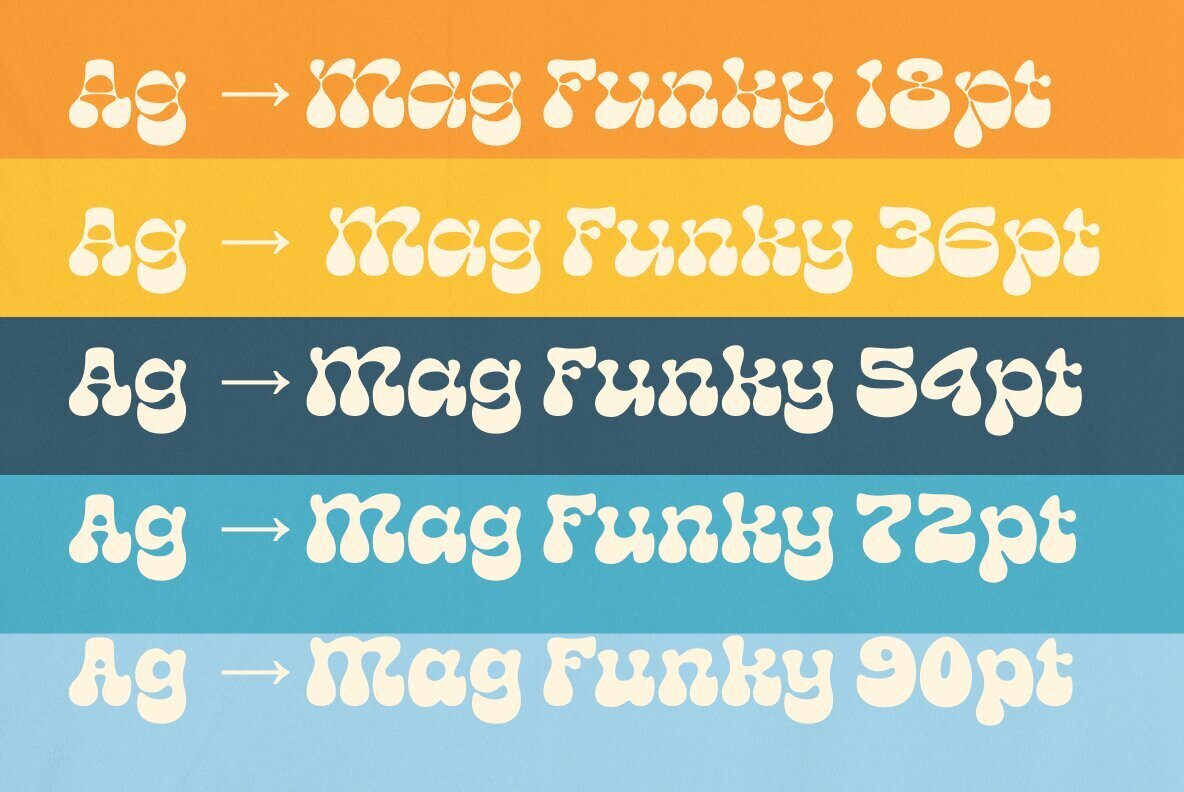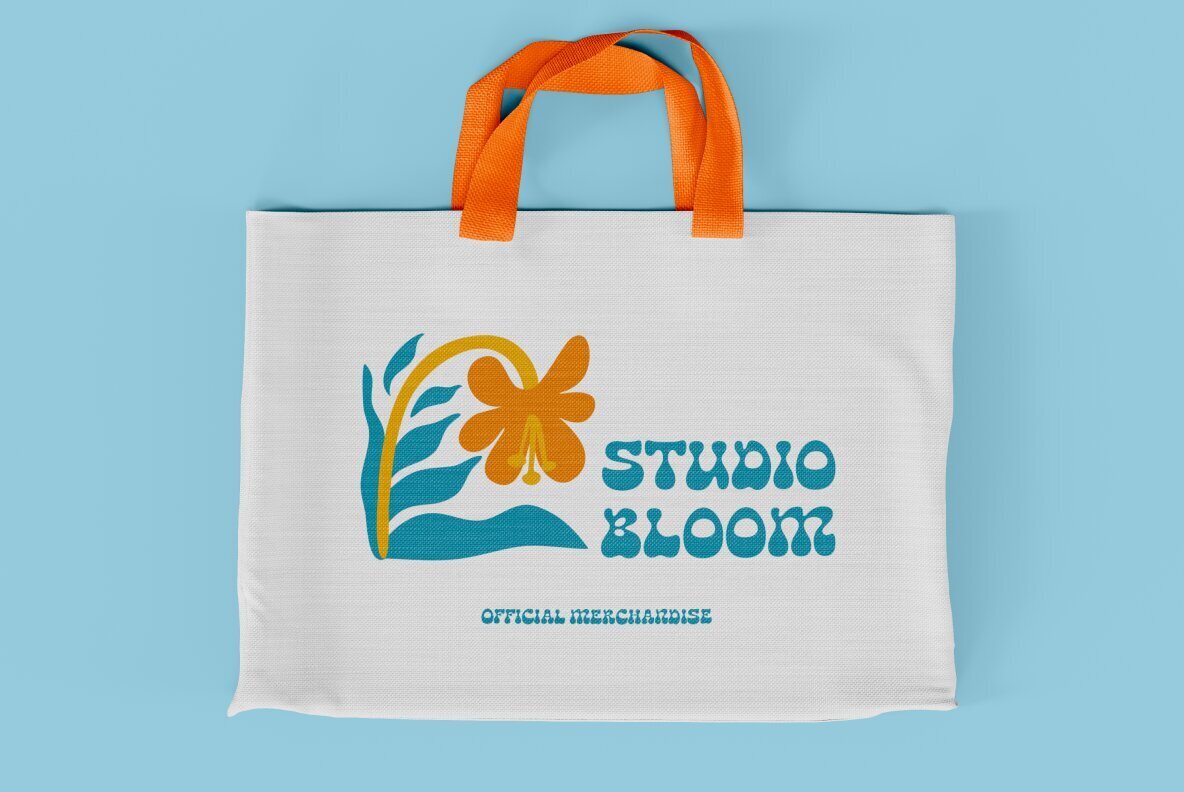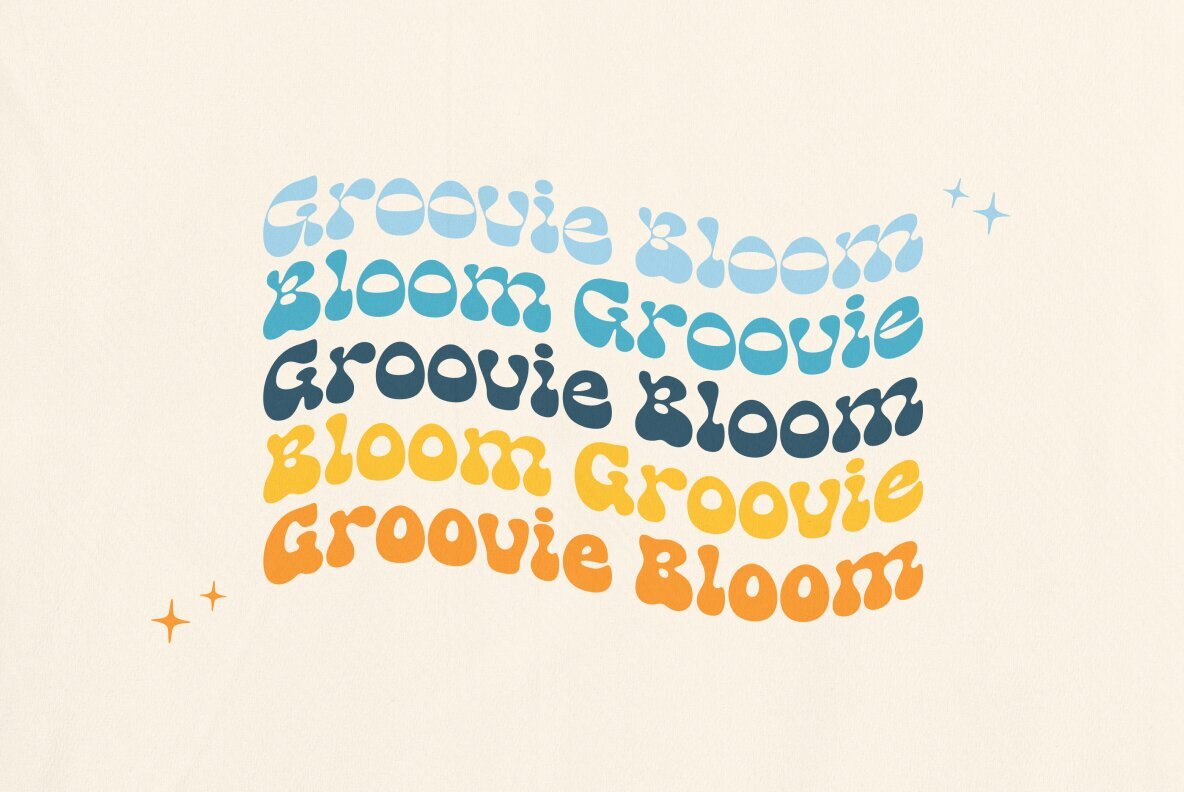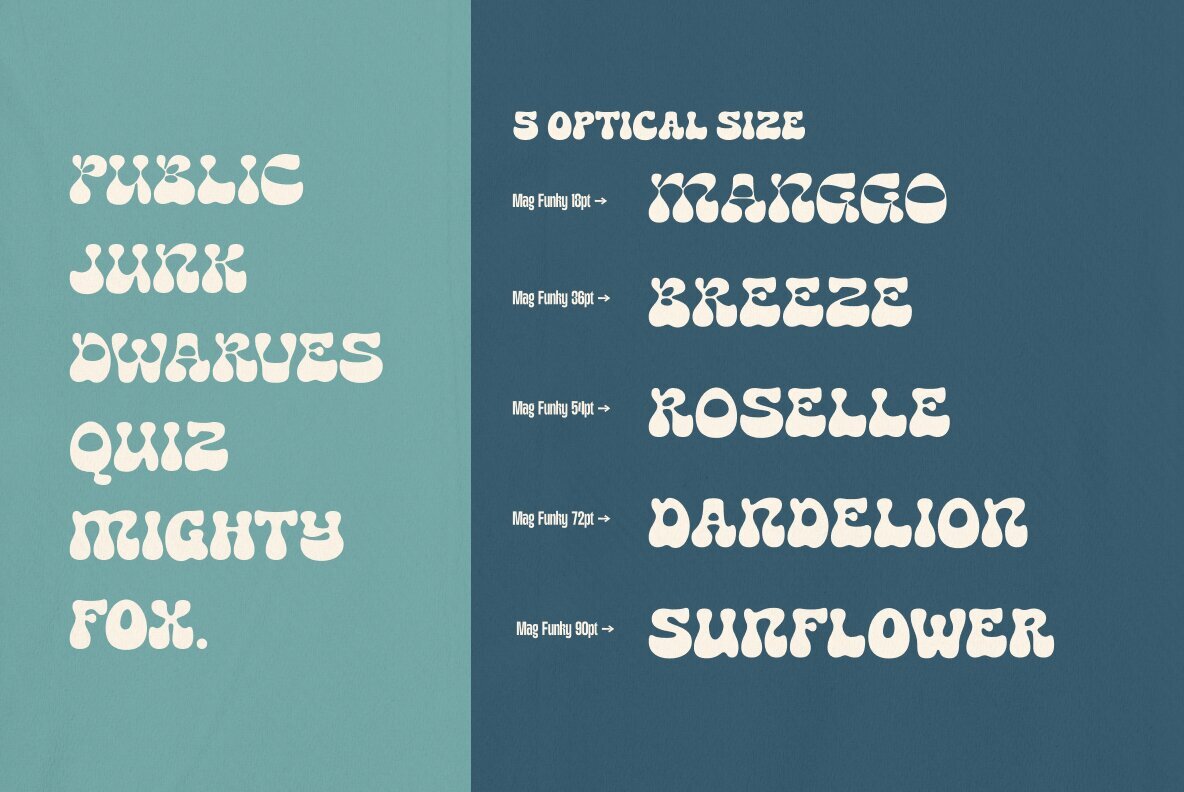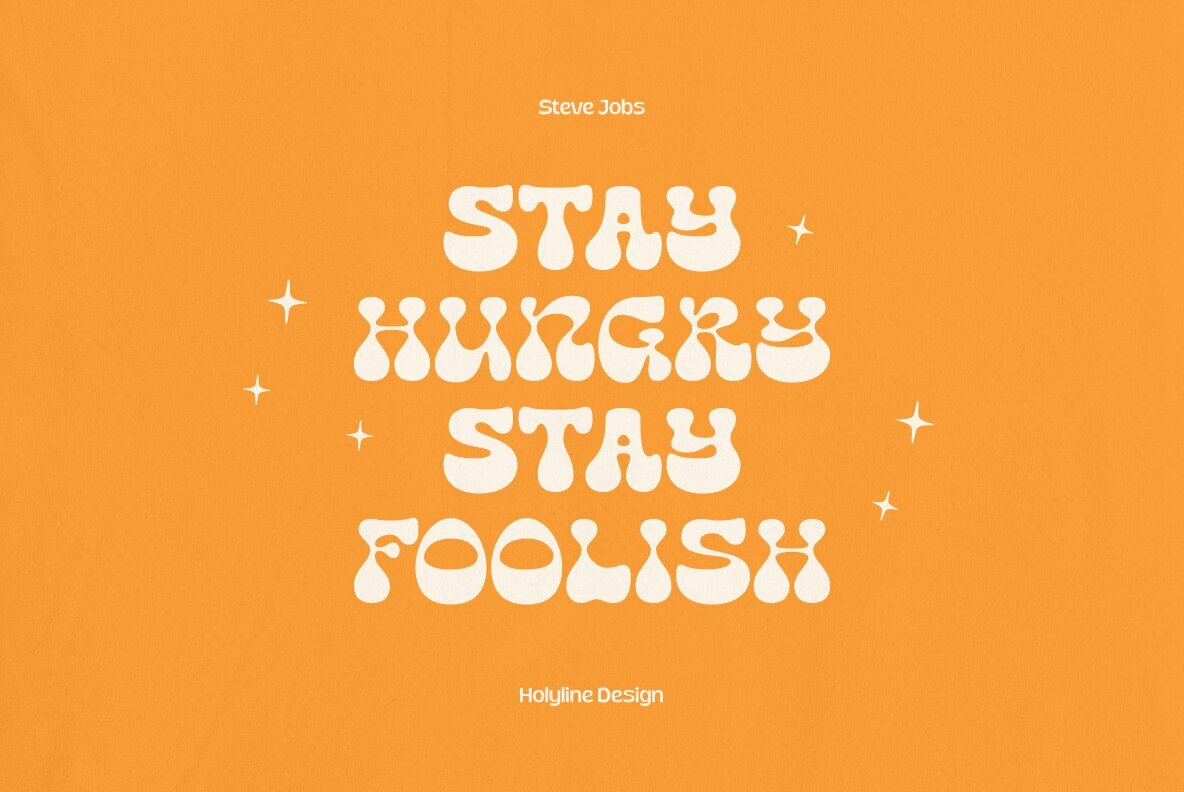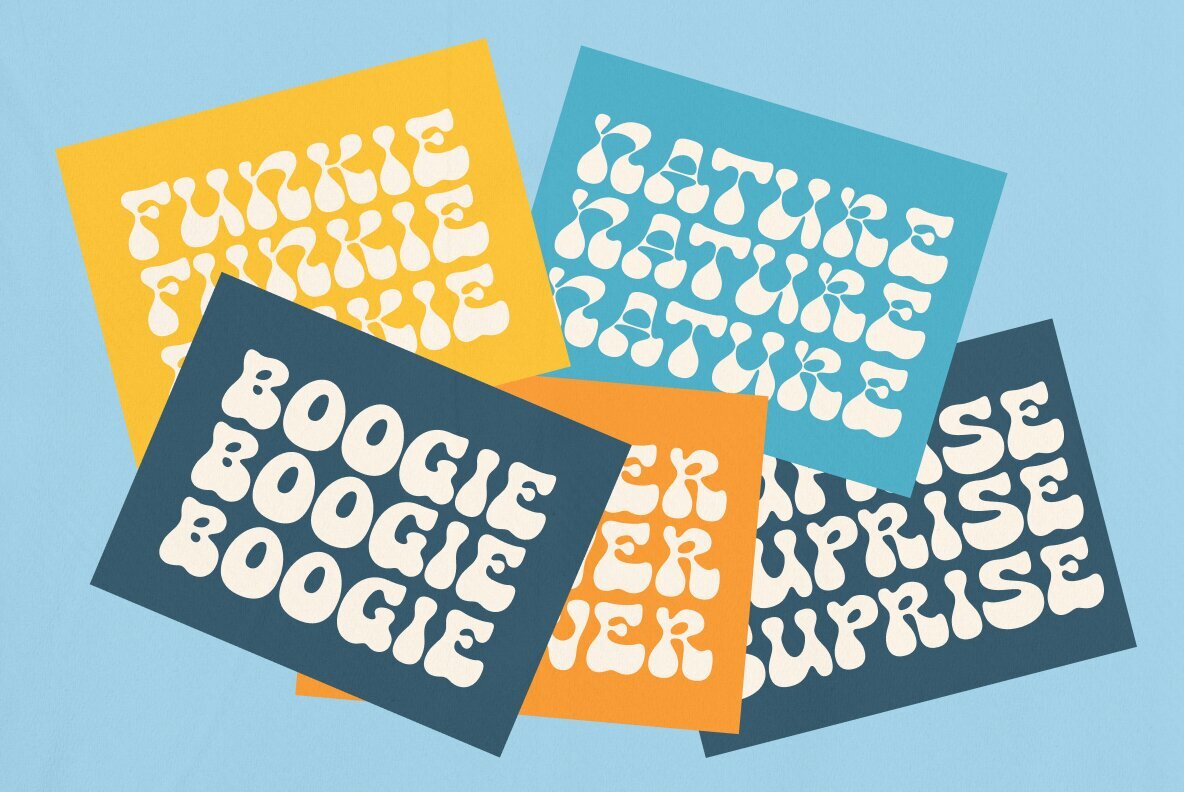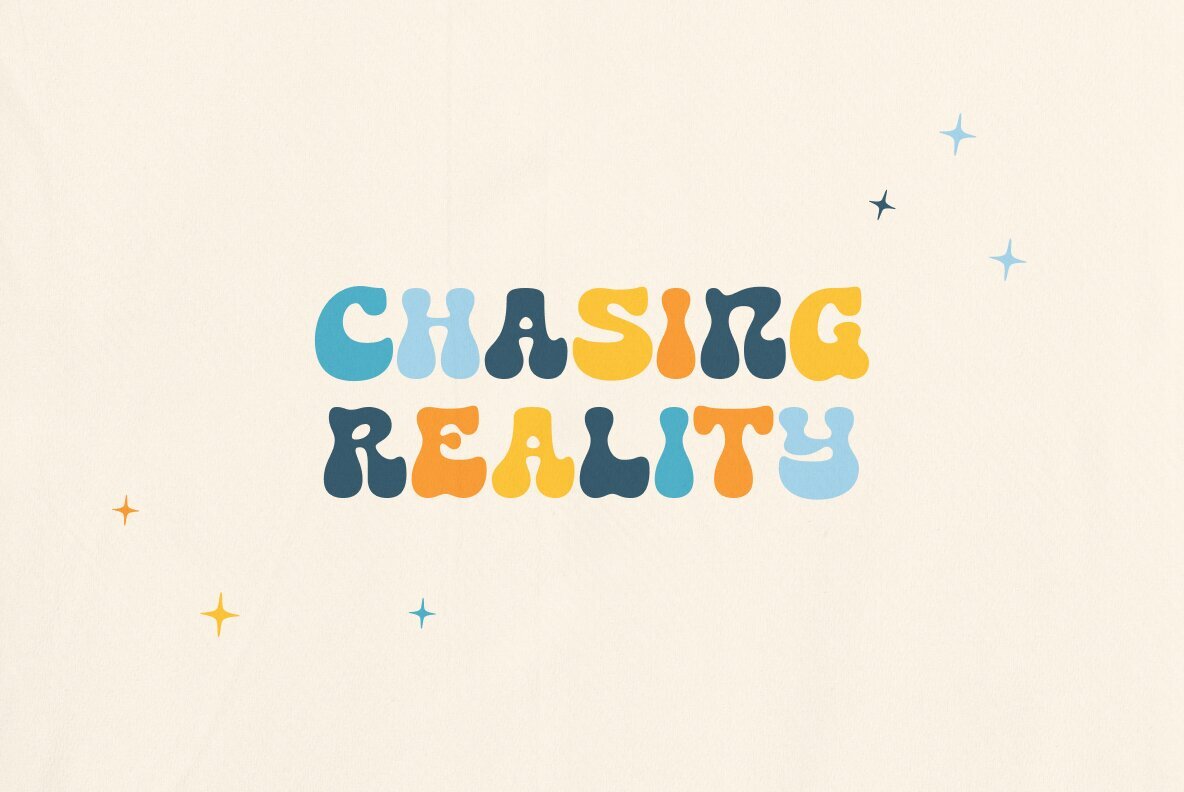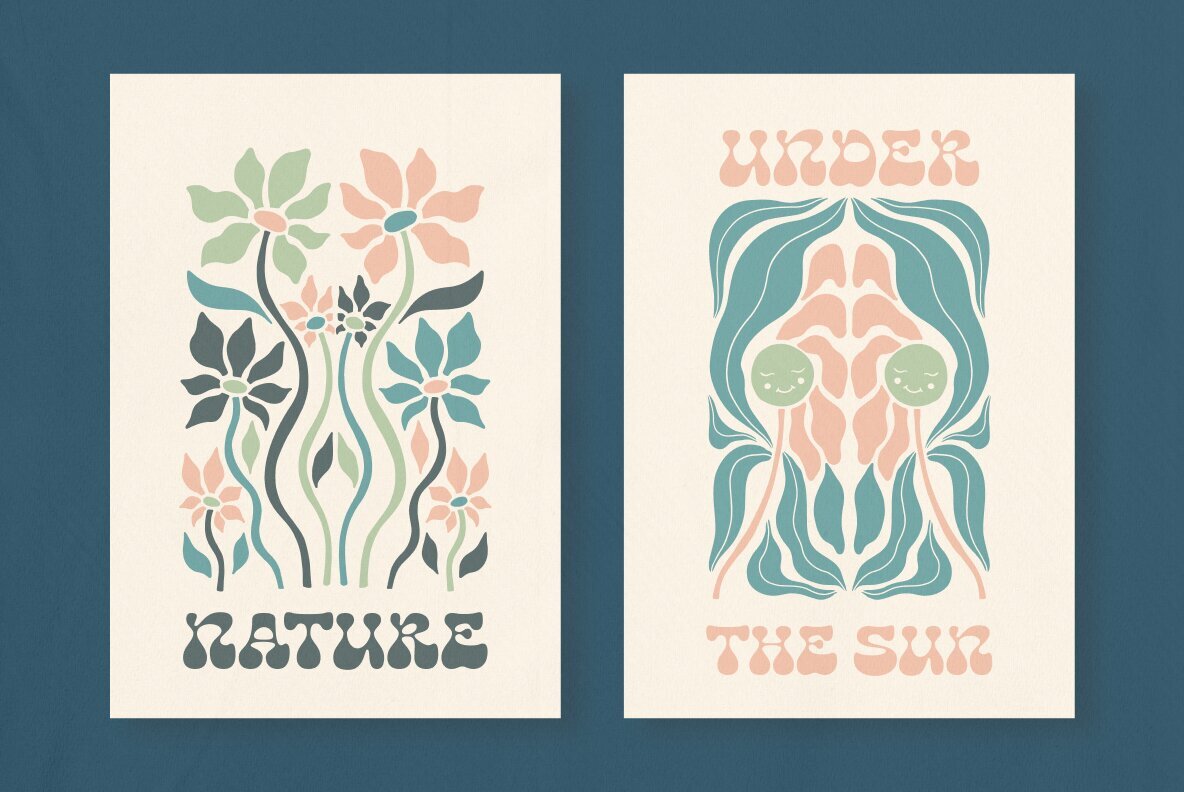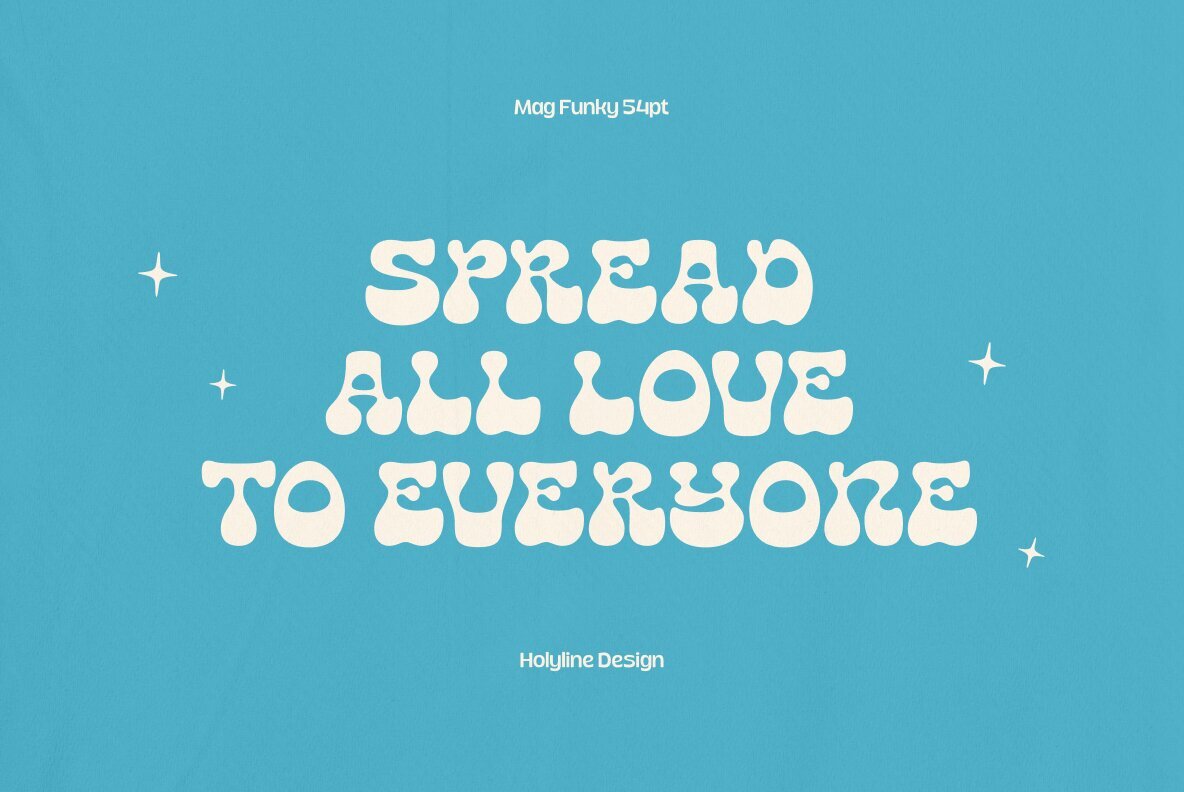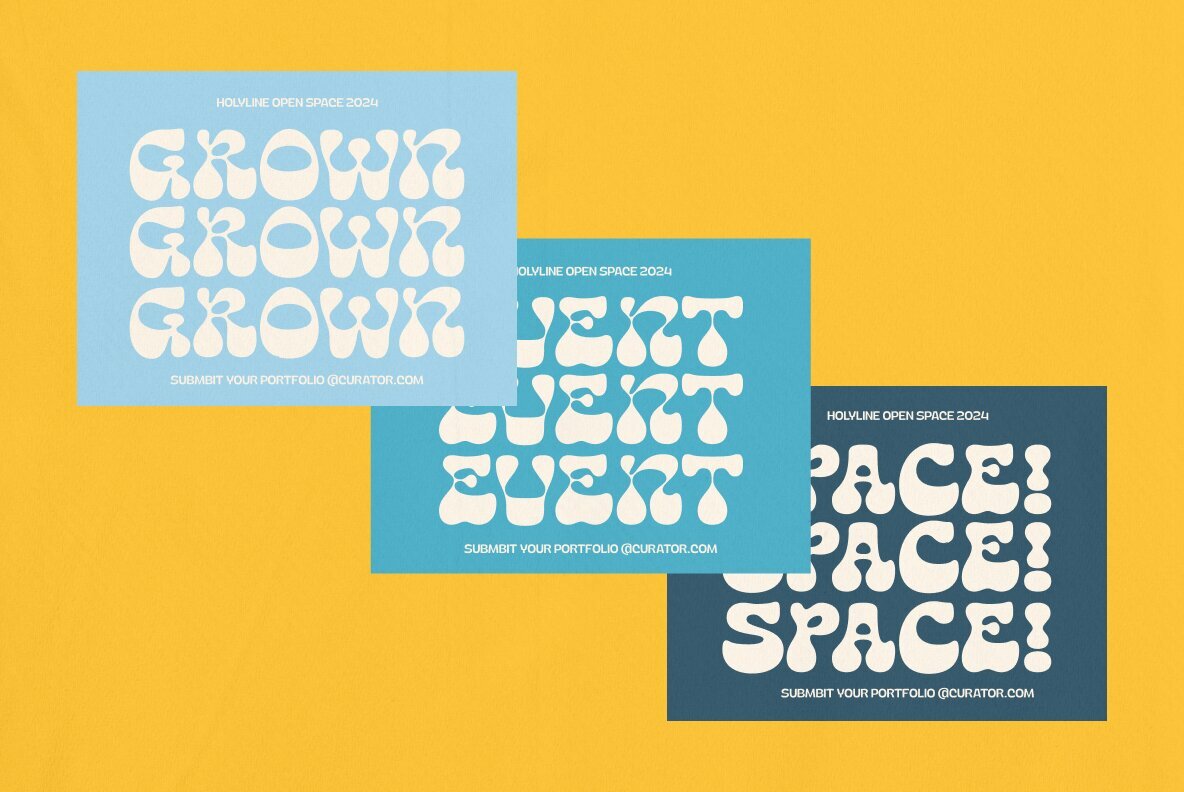
Mag Funky Font
Mag Funky is a playful and funky display font that transports the groovy essence of psychedelic and retro poster design into today's world. Characterized by its thick, expressive curves, this font exudes a vibrant and free-spirited vibe reminiscent of the '60s and '70s. It's the perfect choice for crafting eye-catching headlines, posters, and brand identities.
Featuring five optical sizes, Mag Funky provides a dynamic range of styles, from subtle to bold, allowing designers to tailor its application for any creative project. Whether you aim to make a striking statement or pursue a softer retro aesthetic, this font offers the versatility needed to bring your designs to life. Ideal for projects seeking attention with a dash of retro funk and ample personality.